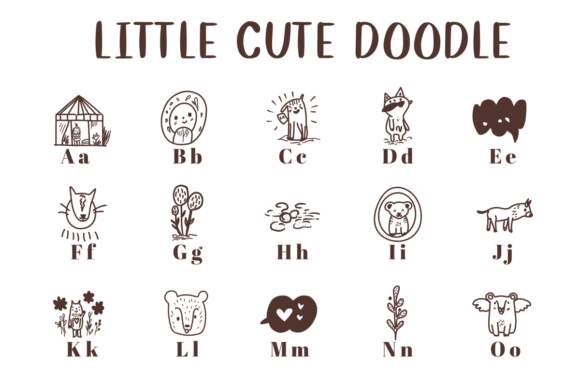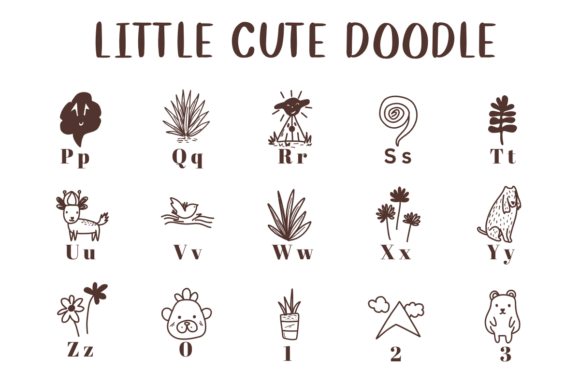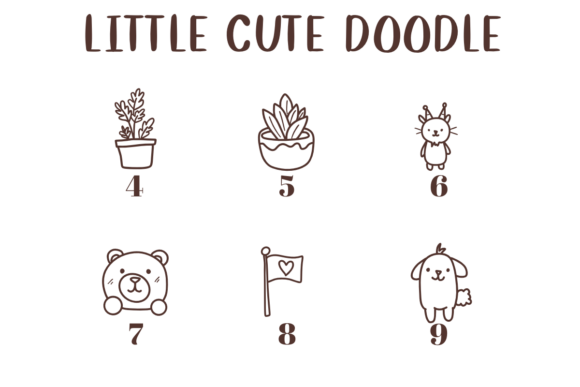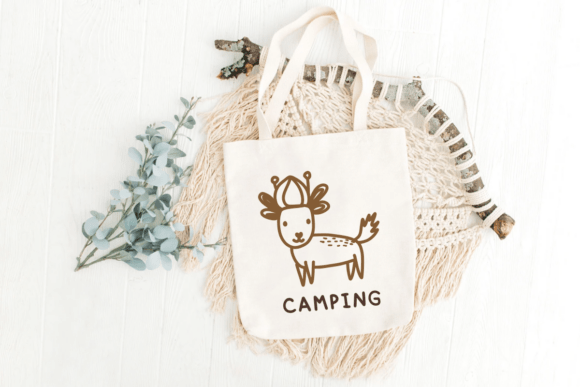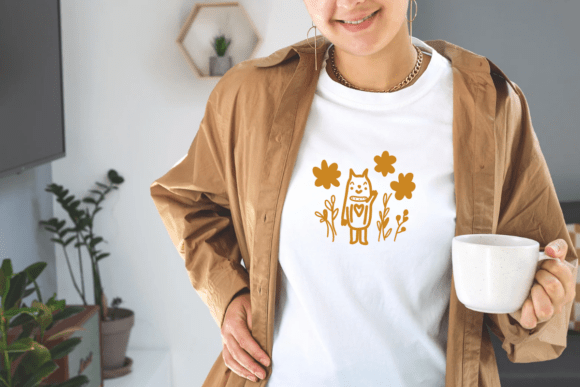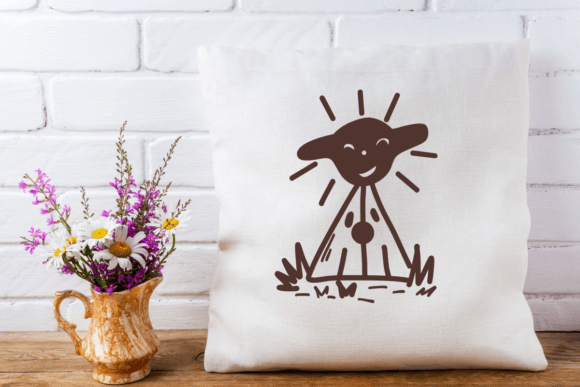
Introduction to Little Cute Doodle Font Font
Fonts play a crucial role in design, and the Little Cute Doodle Font font is a typeface that brings both character and versatility to any project. Whether you’re working on a branding project, a website, or a print design, the Little Cute Doodle Font font offers a unique style that can elevate your work.
Little Cute Doodle is a dingbats font with an abstract theme.
This font can enhance your creative projects such as wedding invitations, DIY, crafts, decorations, logos, and many other creative ideas .
Key Features of Little Cute Doodle Font Font
Why Choose Little Cute Doodle Font Font?
The Little Cute Doodle Font font is more than just a typeface – it’s a design tool that helps you communicate your message with style and clarity. Its unique character set and versatile design make it suitable for a wide range of applications, from elegant invitations to bold headlines.
With its carefully crafted letterforms and balanced proportions, the Little Cute Doodle Font font ensures readability and visual appeal across all mediums.
What makes Little Cute Doodle Font font special?
The Little Cute Doodle Font font stands out with its unique design, exceptional readability, and versatility across various design applications.